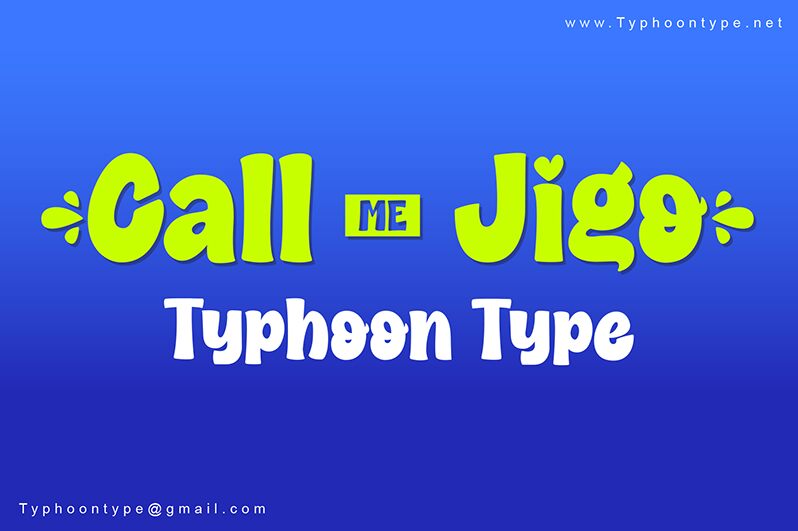
Call Me Jigo font by Typhoon Type - Suthi Srisopha is a distinct display typeface with cartoon/quirky style, and bold structure. The font has a chunky presence that makes it visually hallucinatory while its decorative elements add to its expressive power. This unusual nature of the typeface makes it seem like every word, sentence, or paragraph lights up the background on which it is written. Call Me Jigo immediately makes an impact and leaves a memorable effect as well.
Essentially a display font for eye-catching designs rather than content reading, this free-to-use talented tool best suits product labels, handwritten posters, short brands names/logos, children’s books covers/titles or even insides, outdated video game graphics projects (such as 8-bit), and typical new media material including emails and social media pages.
Type (before a word) to get the beginning swash and type (after a word) to get the ending swash.
Example: (Call me Jigo)